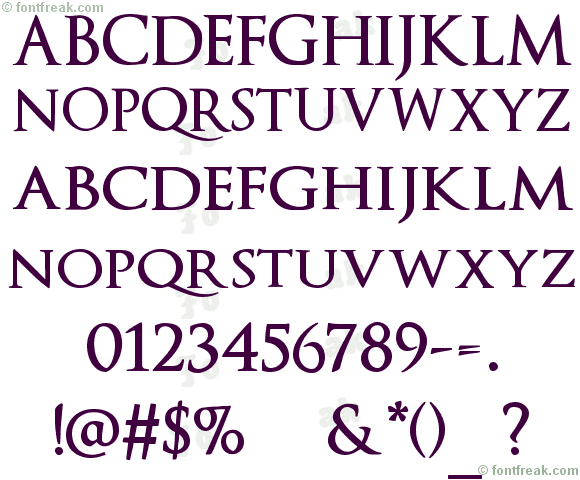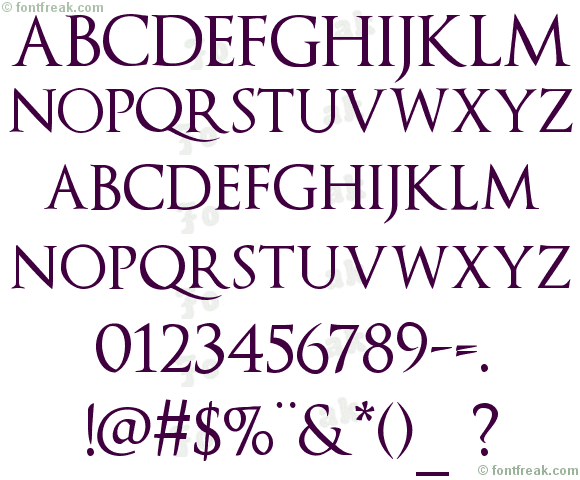
OptimusPrinceps
OptimusPrincepsSemiBold
OptimusPrinceps is a sophisticated serif font created by Manfred Klein in 2004, now available for free download. This typeface showcases a blend of classical elegance and modern readability, making it a versatile choice for various design projects. With its distinctive stroke weight and graceful curves, OptimusPrinceps exhibits a balanced contrast that enhances legibility while maintaining an air of sophistication. The font features ample spacing between characters, contributing to its overall clarity and making it perfect for both print and digital use.
This font excels in several specific applications. Its refined aesthetics make it an excellent choice for wedding invitations, where the elegance of the serif can complement the romantic theme. Additionally, it is well-suited for movie posters, lending a cinematic flair that captures attention. Restaurant menus can also benefit from the font's upscale appearance, enhancing the dining experience through visual appeal. Graphic designers will find OptimusPrinceps particularly useful when creating branding materials, as its timeless design conveys professionalism and trustworthiness. Small business owners can leverage this font in promotional materials to establish a strong visual identity that resonates with their audience.